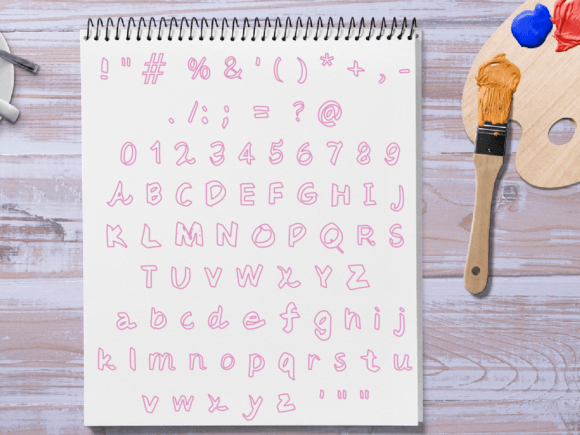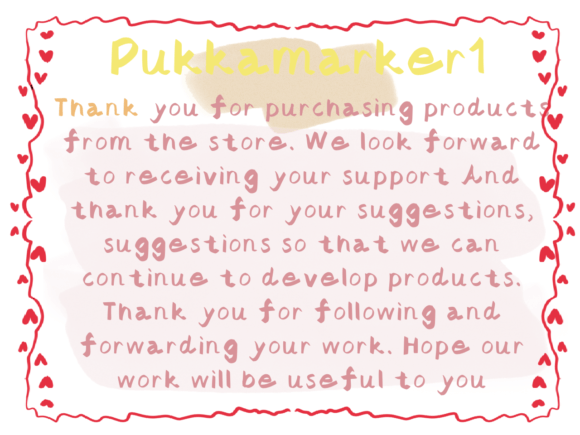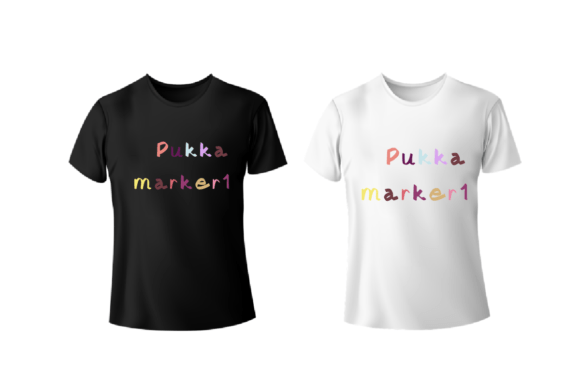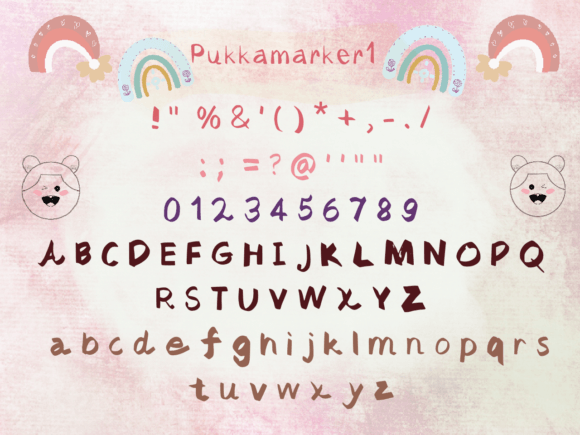
Introduction to Pukkamarker1 Font
As designers, we’ve all been there – staring at a blank canvas, trying to come up with the perfect combination of colors and typography to bring our creative vision to life. And then, it happens – a spark of inspiration strikes, and we’re off and running. For me, it’s the sound of a marker pen gliding across paper, leaving behind a trail of vibrant colors and unique textures.
That’s exactly what the Pukkamarker1 Font offers – a one-of-a-kind, handwritten experience that’s perfect for adding a personal touch to your creative projects. With its high-quality design and transparent background, this font is a game-changer for designers looking to elevate their work. And the best part? It’s available for free download, making it an invaluable design resource for anyone looking to add a little extra something to their designs.
Whether you’re working on a greeting card, a wedding invitation, or simply a letter to a loved one, the Pukkamarker1 Font is sure to bring a smile to their face. Its joyful, handwritten feel is the perfect way to add a personal touch to your designs, making it a valuable asset for any designer looking to take their work to the next level.
Key Features of Pukkamarker1 Font
- High-quality font designed for creative projects, ideal for use in graphic design, digital art, and publishing.
- Designed with a unique, hand-drawn style, making it perfect for adding a personal touch to creative projects.
- Perfect for designers looking for a free, high-quality font to enhance their creative projects, from posters to digital graphics.
Honest Review: Pukkamarker1 Font
I recently stumbled upon the Pukkamarker1 Font, and I must say it’s been a game-changer for my creative projects. With its transparent background, this font seamlessly blends with any design, making it perfect for those who want to add a touch of elegance to their work.
One of the things that works well for me about the Pukkamarker1 Font is its high-quality design. The strokes are smooth, and the overall aesthetic is crisp and clean. It’s perfect for any creative project that requires a sophisticated look.
- Perfect for creative projects that require a sophisticated look
One limitation of the Pukkamarker1 Font is its limited character set. I would have liked to see more special characters and symbols available for use.
Overall, I’m really impressed with the Pukkamarker1 Font. It’s a great addition to any design resource library, and I highly recommend it for anyone looking to add some high-quality fonts to their collection.
Tips for Getting the Most Out of Pukkamarker1 Font
To get the most out of the Pukkamarker1 Font, use it on a transparent background to create a high-quality design. This font is perfect for creative projects that require a unique and stylish touch.
The Pukkamarker1 Font is commonly used in creative projects such as logos, branding materials, and advertisements. Its unique and stylish design makes it perfect for projects that require a high level of visual appeal.